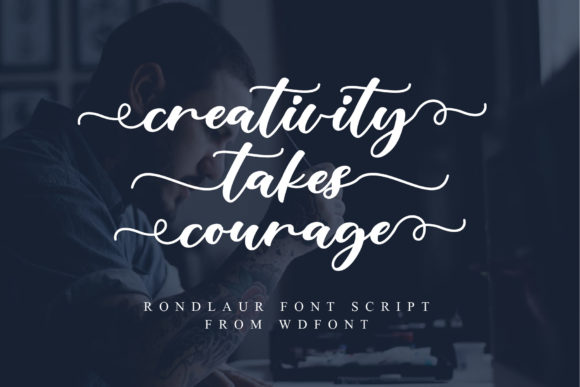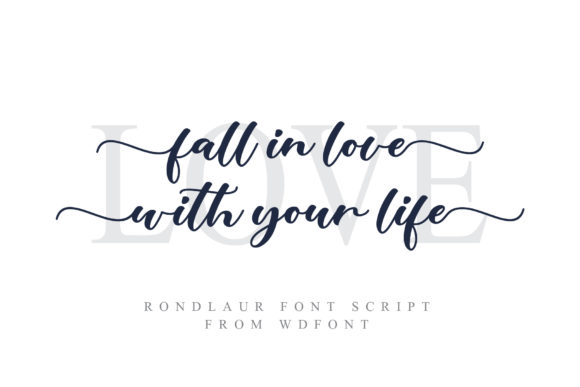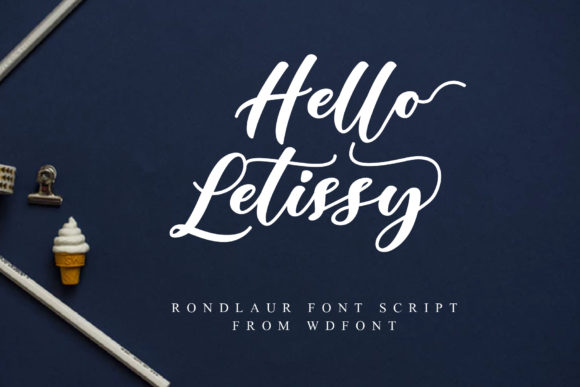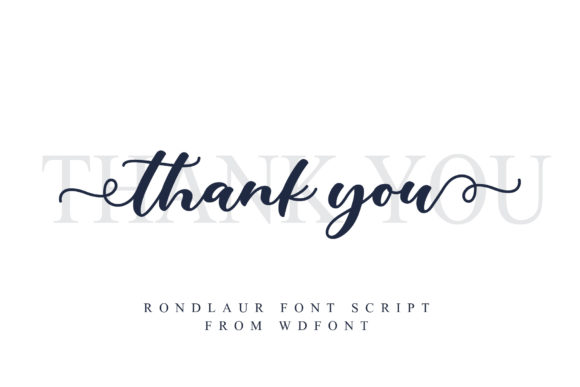
Rondlaur Font
About Rondlaur Font
Rondlaur is a light and fresh handwritten font with incredible swashes. It will add a unique spark to any design project!